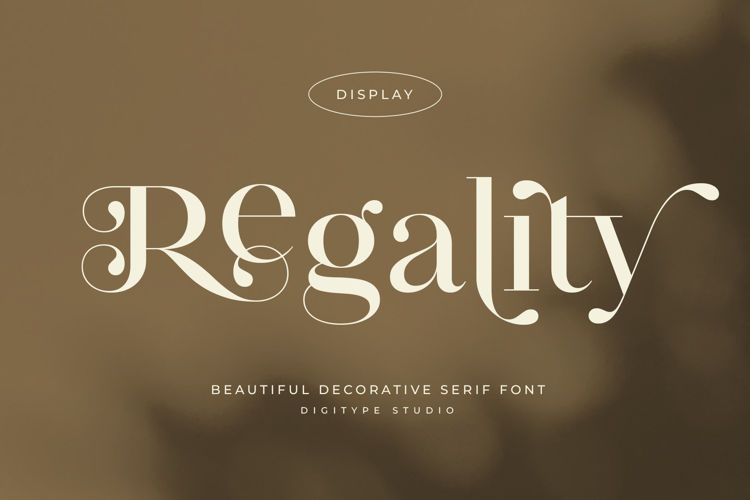
Regality Font
About Regality Font
Semi Bold Style
Regality Display is a decorative serif font with beautiful curves. Combining smooth, circular strokes and teardrop terminals makes this font unique and attractive.